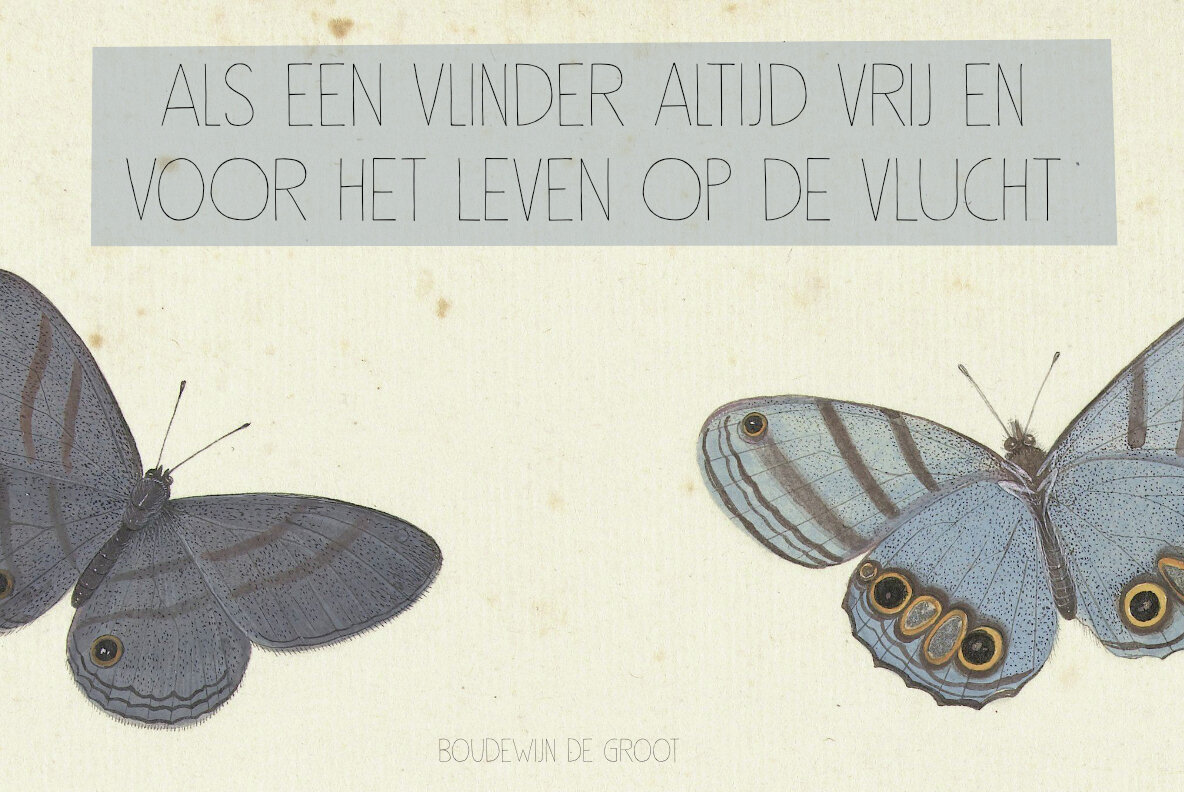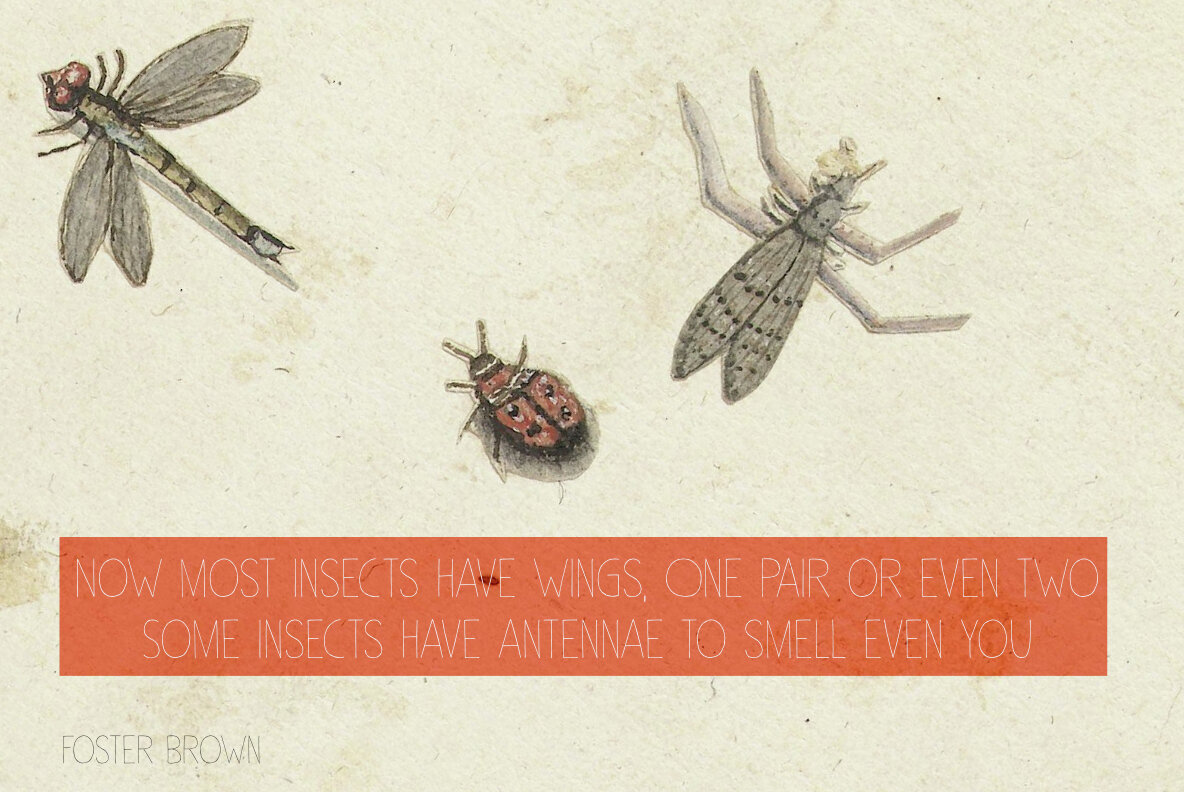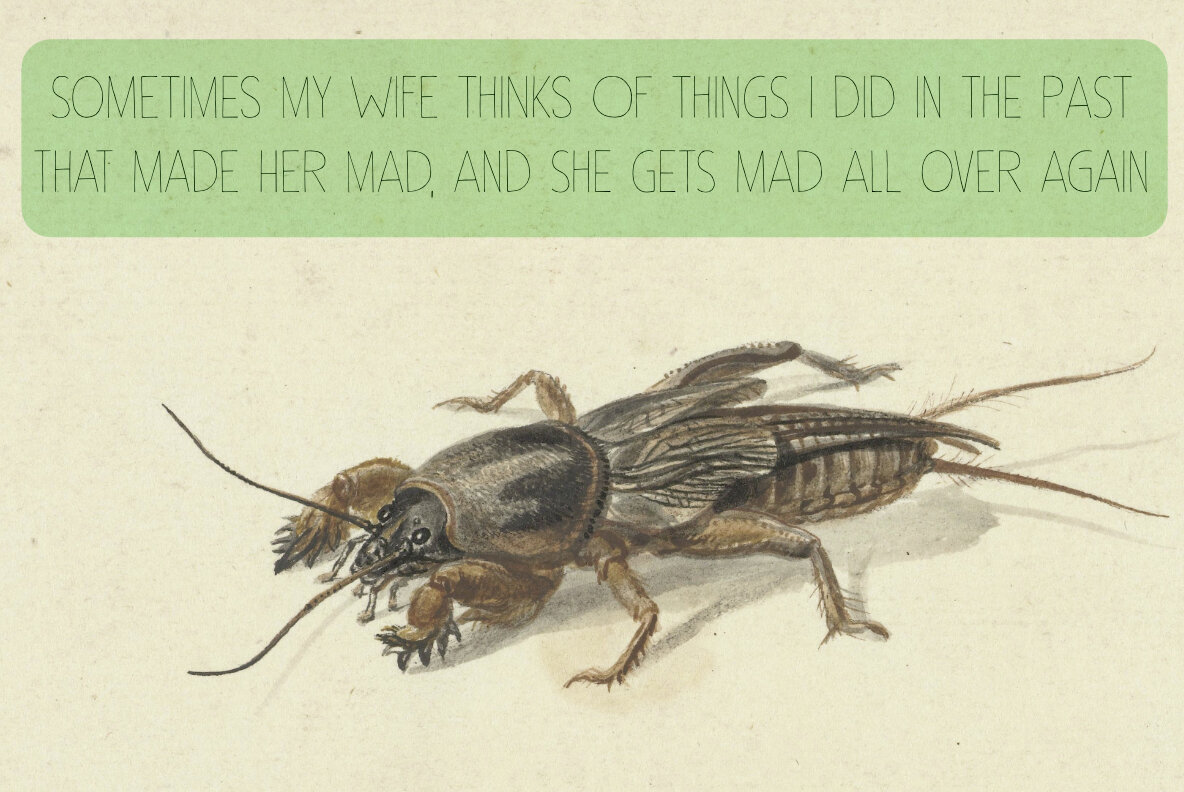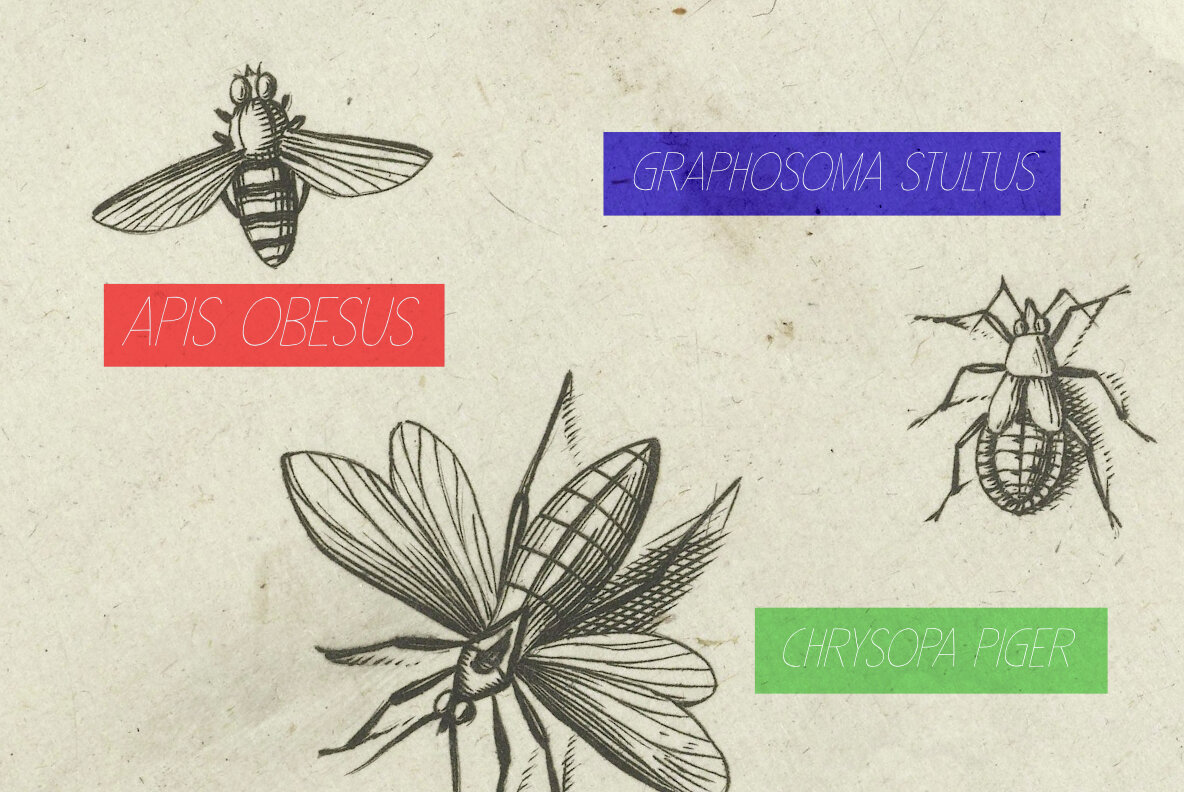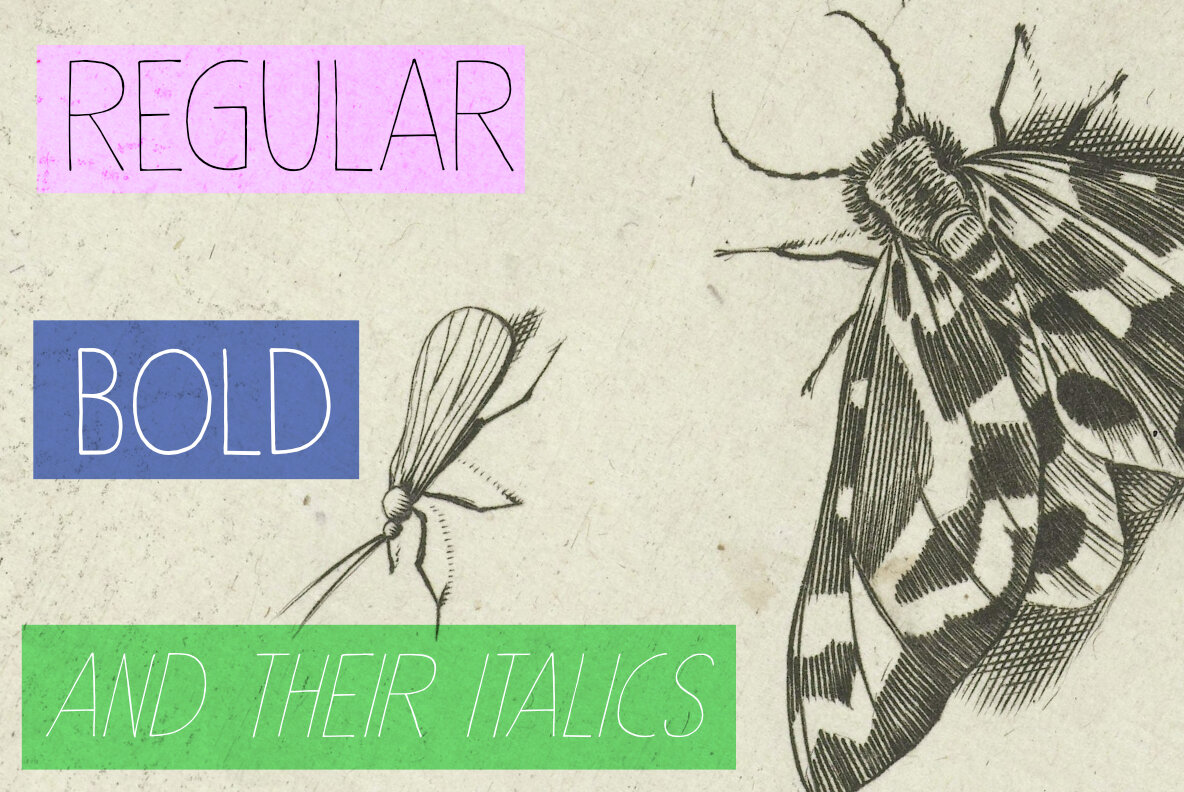
Insect Jar Font
My son Boris has an insect jar; one of those plastic containers with a magnifying glass lid. He and his bestie often run around in the garden looking for critters. They then place them inside the jar, together with some green leaves and forget all about them. I always feel sorry for these insects and help them escape. Insect Jar is a really thin, all caps font based on a really old font of mine called Sleepy Time. It comes with extensive language support, a bold version and an ant.